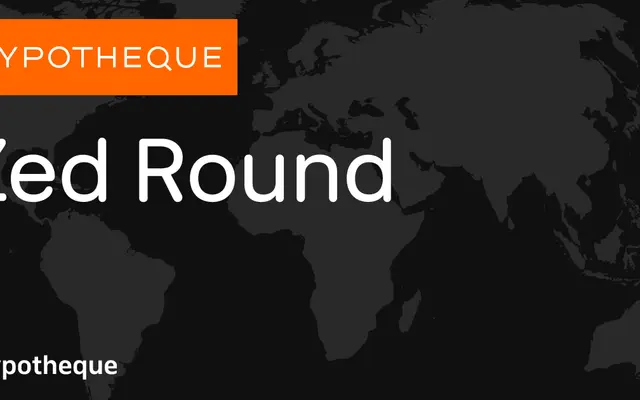
Zed Round specimen from Typotheque
The rounded-terminal subfamily within Typotheque's Zed system, spanning nine widths and nine weights with slanted and backslanted companions for each style.
Zed Round sits within a sprawling type system that runs from Extra-Compressed to Extra-Wide across both display and text optical sizes, sharing proportional architecture with the sharper Zed Display cuts. Each weight from Hairline to Black comes in upright, slanted and backslanted variants, named after world cities, giving designers a total of 27 styles within this subfamily alone. The rounded terminals soften the geometric construction for contexts where the harder Display cuts would feel too severe.
Zed Round is part of a large geometric display system with multiple width variants; the Round subfamily features rounded terminals distinguishing it from the sharper Display cuts, placing it firmly in geometric display territory.